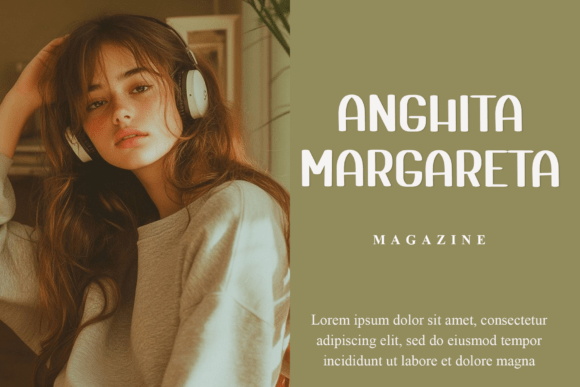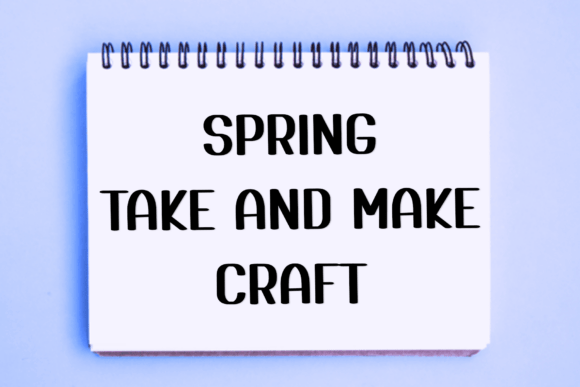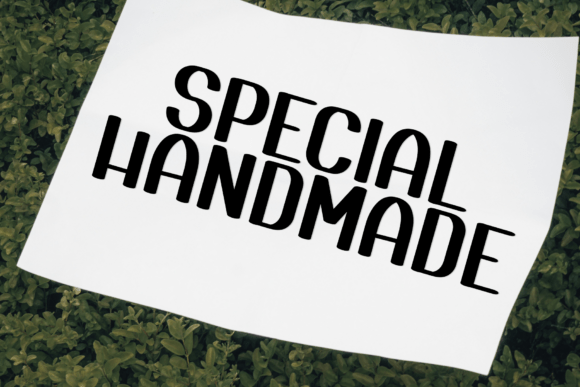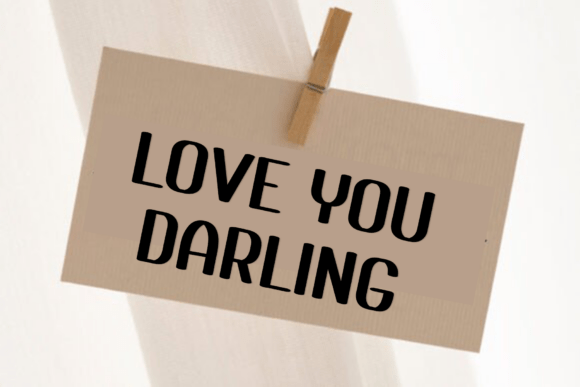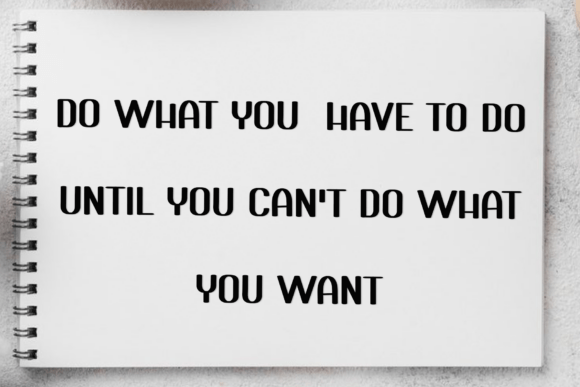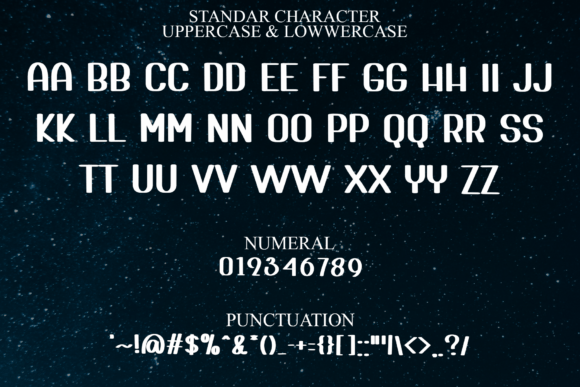
Unleash Your Creativity with Doodle Marker Font
Who hasn’t had that moment when a blank piece of paper stares back at them, begging to be filled with creativity? The blank slate can be intimidating, but it’s also a blank check waiting to be filled with imagination. For designers and creatives, this moment is a chance to breathe life into a project, and the right tools can make all the difference.
Enter the Doodle Marker Font, a charming and playful font that brings a touch of warmth and friendliness to any design. With its round, hand-drawn strokes, this font is perfect for personal projects, invitations, and social media graphics that need a relaxed and approachable feel. The Doodle Marker Font’s unique aesthetic is sure to add a fun and creative touch to any design, making it a valuable addition to any designer’s toolkit.
Doodle Marker Font Key Features
- Unique Hand-Drawn Style: The Doodle Marker Font features a playful, hand-drawn design that adds a personal touch to any text.
- High-Quality Resolution: Designed at 300 DPI, ensuring crisp and clear text at any size.
- Extensive Character Set: Includes a comprehensive set of uppercase and lowercase letters, numbers, punctuation marks, and special characters.
- Easy Customization: Allows for easy color and size adjustments, making it perfect for digital and print applications.
- Perfect for Creative Projects: Ideal for use in advertising, branding, and editorial content where a unique and playful touch is desired.
Doodle Marker Font Review
Overall, I found the Doodle Marker Font to be a fun and playful addition to any design project. ✨ The font’s irregular shapes and imperfections give it a unique, hand-drawn feel that’s perfect for creating whimsical and childlike designs. ✨ The font’s versatility is also a major plus, as it can be used for a wide range of applications, from digital art to print materials.
One of the things that really stands out about the Doodle Marker Font is its flexibility. ✨ It can be used in both uppercase and lowercase letters, making it easy to create a consistent look throughout your design. Additionally, the font’s wide range of weights and styles allows you to customize it to fit your specific needs.
What Doesn’t Work So Well
While the Doodle Marker Font has a lot of great qualities, there are a few limitations that are worth noting. ⚠️ For one, the font can be a bit difficult to read in certain situations, particularly when used in small sizes or in conjunction with other fonts. Additionally, the font’s imperfections can sometimes make it difficult to achieve a precise, professional look.
- Difficulty reading in small sizes
- Imperfections can make it difficult to achieve a precise look
- Can be challenging to pair with other fonts
Overall, I would recommend the Doodle Marker Font to designers who are looking for a fun and playful way to add some personality to their designs. While it may not be the best choice for every project, it’s definitely worth considering for applications where a whimsical, hand-drawn look is desired.
For best results, use the Doodle Marker Font in designs that require a playful and creative touch. Some common use cases include:
- Children’s book illustrations
- Party invitations and decorations
- Social media graphics and posts
- Brand logos and identity
Remember to experiment with different font sizes, colors, and combinations to get the most out of the Doodle Marker Font.
Alternatives to Doodle Marker Font for Designers
1. Comic Sans MS
Comic Sans MS is a sans-serif font that mimics handwriting. It’s ideal for informal and playful designs, such as children’s books, party invitations, or social media graphics. While it’s not as versatile as Doodle Marker Font, it can be used for a more casual, handwritten look.
Comparison: Comic Sans MS is more straightforward and lacks the creative flair of Doodle Marker Font. However, it’s free and widely available, making it a great alternative for simple designs.